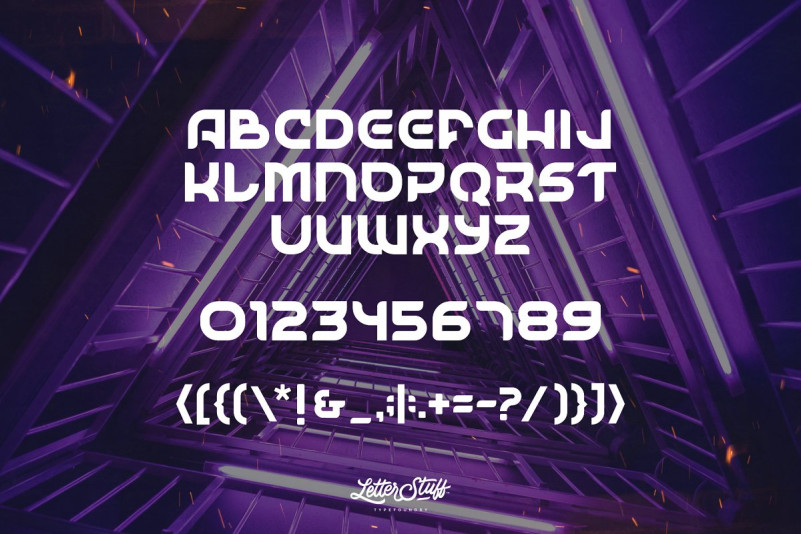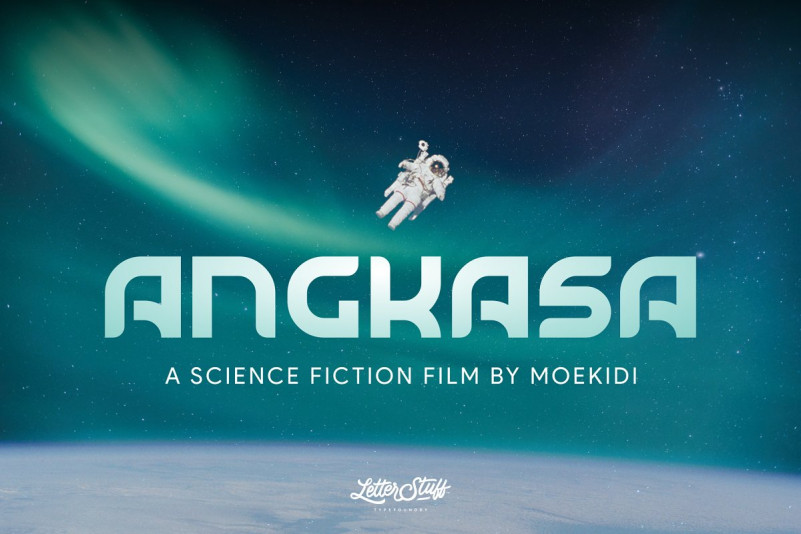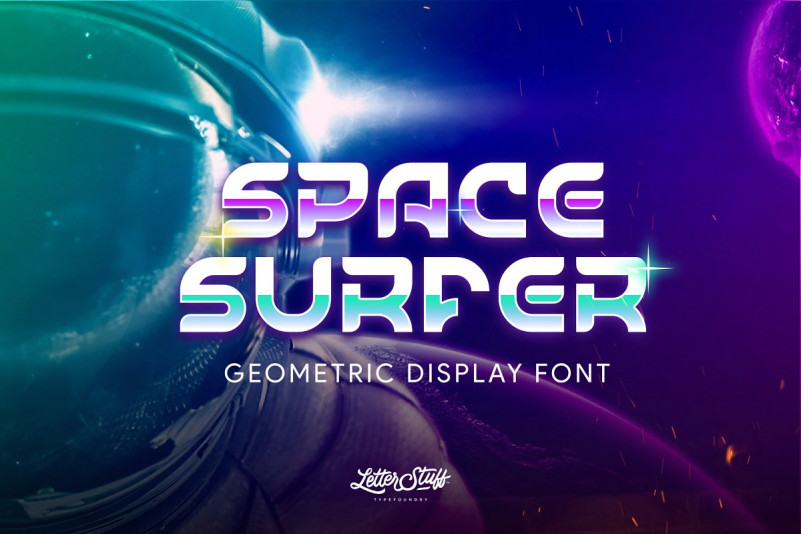
SpaceSurfer Typeface
Hello world..!! This is a futuristic font with minimalist, wide letters. Not only that but the rounded shape makes a lovely, cute and soft impressions so this font is suit for cartoon, animation and character merchandise too. Introducing SpaceSurfer Font! It’s designed and shared by LetterStuff Typefoundry. SpaceSurfer Typeface is new futuristic, strong yet bold display font. Made with precision and modern looking. Suitable for your modern and futuristic design need such as film poster, logo, games etc.